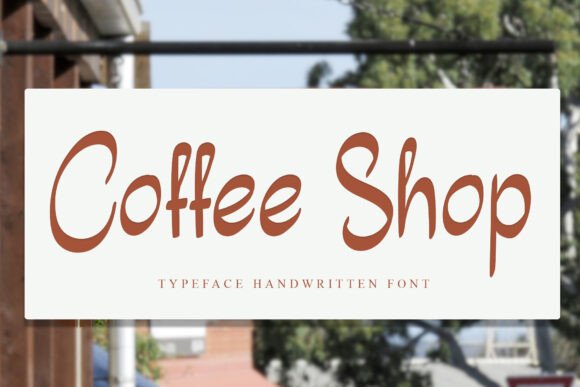
Coffee Shop Font: Elevate Your Designs with Elegance
Are you searching for a font that adds a touch of uniqueness and elegance to your projects? Look no further than the Coffee Shop Font, a beautifully crafted typeface designed to elevate your designs. Whether you’re working on a wedding invitation, a birthday card, or a school assignment, this font is perfect for adding a professional and creative flair.
What Makes Coffee Shop Font Special?
Coffee Shop Font is a one-of-a-kind typeface that has been carefully crafted with a professional hand touch. This font is not just a collection of letters and symbols; it’s an artistic expression that can transform your designs into stunning works of art. The attention to detail and the elegant style of the font make it perfect for a wide range of applications, from formal events to creative projects.
Perfect for Various Projects
Coffee Shop Font is incredibly versatile and can be used in various projects, including:
- Wedding invitation cards: Add a touch of romance and elegance to your wedding invitations with this beautiful font.
- Birthday cards: Make your birthday cards stand out with a unique and playful style.
- Party invitations: Whether it’s a baby shower, a graduation party, or a birthday bash, this font is perfect for creating eye-catching invitations.
- School assignments: Add a creative touch to your school projects and assignments with this elegant font.
- Important events: Use Coffee Shop Font to create stunning designs for conferences, seminars, and other important events.
Why Choose Coffee Shop Font?
There are many reasons why Coffee Shop Font stands out from other fonts:
- Unique and elegant style: This font has a distinctive style that will set your designs apart from others.
- Professional hand touch: The font has been carefully crafted with a professional hand touch, giving it a personal and artistic feel.
- Versatile: This font can be used in a wide range of projects, from formal events to creative assignments.
Tips for Using Coffee Shop Font
To get the most out of Coffee Shop Font, here are some tips:
- Experiment with different sizes and colors: Play around with different sizes and colors to find the perfect combination for your design.
- Use it with creative ideas: Apply Coffee Shop Font to your creative ideas to make them look better and more professional.
- Pair it with other fonts: Experiment with pairing Coffee Shop Font with other fonts to create a unique and eye-catching design.